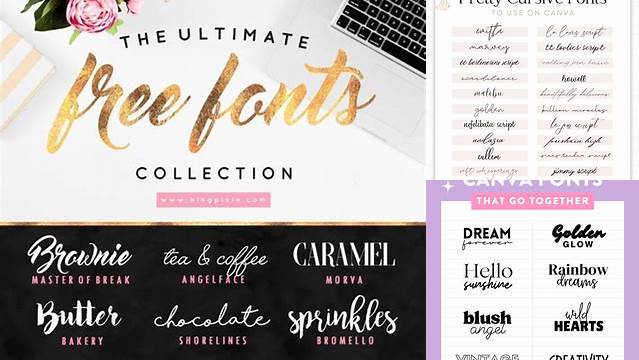
Pretty Fonts Download: Your Ultimate Guide
Hey guys! Ever feel like your project needs that extra something? Maybe it’s a document, a presentation, or even a social media post. Chances are, a pretty font can be the missing piece. Finding the right font can be like discovering the perfect accessory for an outfit – it just makes everything look better. Let's dive into the world of pretty fonts download and explore everything you need to know to make your text truly shine.
1. What Makes a Font “Pretty”?
So, what exactly defines a "pretty" font? It's subjective, of course, but some common characteristics stand out. We're talking about fonts that have an aesthetic appeal that's pleasing to the eye. These fonts often have elegant curves, unique serifs, or a modern, clean look. Think about the message you're trying to convey. A playful font might be great for a party invitation, but not so much for a formal report. Pretty fonts download can be found in various styles, from script fonts that mimic handwriting to bold display fonts that grab attention.
Key Elements of Pretty Fonts:
- Aesthetics: The overall visual appeal of the font.
- Readability: How easy it is to read the font, especially in longer texts.
- Style: The font's personality – is it elegant, playful, modern, or classic?
- Context: How well the font fits the purpose of your project.
Consider the emotions and ideas you want to evoke. A delicate script font can convey elegance and sophistication, while a bold sans-serif font might communicate confidence and modernity. Explore different font styles to discover what resonates with your vision. Remember, the right pretty font can elevate your project from ordinary to extraordinary.
2. Where to Find Pretty Fonts for Download
Okay, now you're convinced you need some gorgeous fonts. But where do you start your search for pretty fonts download? Luckily, the internet is bursting with options! There are tons of websites offering both free and premium fonts. Let's break down some of the best places to look:
- Google Fonts: This is a fantastic resource for free, open-source fonts. They're all web-safe, meaning they'll display correctly on most devices, and there’s a huge variety to choose from.
- Adobe Fonts: If you're an Adobe Creative Cloud subscriber, you have access to a vast library of high-quality fonts. It's a goldmine for designers and creatives!
- DaFont: DaFont is a classic choice for free fonts. You'll find everything from quirky novelty fonts to elegant scripts.
- Font Squirrel: Font Squirrel is another excellent source for free fonts that are licensed for commercial use. They also have a handy font identifier tool if you see a font you like and want to find it.
- Creative Market: Creative Market offers a mix of free and premium fonts, as well as graphics, templates, and other design resources. It’s a great place to discover unique and stylish fonts.
When browsing these sites, use keywords like “script font,” “serif font,” “handwritten font,” or “modern font” to narrow down your search. Don't be afraid to explore and experiment with different styles! The world of pretty fonts is vast and exciting, so enjoy the journey of discovery.
- Cons: The quality and variety can be inconsistent. Free fonts might not have as many weights or styles as premium fonts, and the licensing can sometimes be restrictive. Always double-check the license before using a free font for commercial purposes.
Premium Fonts:
- Pros: Premium fonts often offer superior quality, more extensive character sets, and better support. They're created by professional type designers and are often more polished and versatile. Plus, you usually get a commercial license, which means you can use them for business projects.
- Cons: The main drawback is the cost. Premium fonts can range from a few dollars to hundreds, depending on the foundry and the license. However, if you're serious about design, investing in a few high-quality premium fonts can be worth it.
Ultimately, the best choice depends on your budget, your project requirements, and how often you'll be using the font. If you're just starting out, free fonts are a great way to experiment and build your collection. But if you need something truly unique or professional-grade, premium fonts are the way to go.
4. Popular Styles of Pretty Fonts
Okay, let's talk styles! The world of pretty fonts download is incredibly diverse. Knowing the different styles can help you find the perfect font for your project. Here are some popular categories:
- Script Fonts: These fonts mimic handwriting and are often used for invitations, logos, and headings. They can range from elegant and formal to playful and casual.
- Serif Fonts: Serif fonts have small strokes (serifs) at the ends of the letters. They're often used for body text in books and magazines because they're easy to read.
- Sans-Serif Fonts: Sans-serif fonts don't have serifs, giving them a cleaner, more modern look. They're popular for websites, headings, and logos.
- Display Fonts: These fonts are designed to grab attention and are best used for headings and titles. They come in a wide variety of styles, from bold and geometric to whimsical and decorative.
- Handwritten Fonts: Similar to script fonts, handwritten fonts have a more casual, personal feel. They're great for adding a human touch to your designs.
Within each category, there are countless variations. Explore different styles to find the ones that resonate with you and your project. Don’t be afraid to mix and match fonts, but always make sure they complement each other!
5. How to Choose the Right Pretty Font
Choosing the right pretty font can feel overwhelming, but it doesn't have to be! Here are some tips to guide you:
- Consider Your Project: What are you creating? A wedding invitation will call for a different font than a business presentation.
- Think About Your Audience: Who are you trying to reach? A young audience might appreciate a modern, playful font, while a more formal audience might prefer a classic serif font.
- Readability Matters: No matter how pretty a font is, it needs to be readable. Avoid fonts that are too decorative or have overly complex letterforms, especially for body text.
- Pairing is Key: If you're using multiple fonts, make sure they complement each other. A classic pairing is a serif font for body text and a sans-serif font for headings.
- Test It Out: Before committing to a font, try it out in your design. See how it looks in different sizes and weights. Make sure it works well with your other design elements.
Remember, font choice is an art and a science. It's about finding the perfect balance between aesthetics and functionality. With a little practice, you'll develop an eye for choosing pretty fonts that enhance your projects.
6. Installing Your Downloaded Fonts
Alright, you've found your pretty fonts download, now what? It's time to install them! The process is usually pretty straightforward, but it can vary slightly depending on your operating system.
- Download the font file (usually in .ttf or .otf format).
- Right-click on the font file and select "Install."
- Alternatively, you can copy the font file to the Fonts folder (usually located in C:\Windows\Fonts).
For macOS:
- Download the font file.
- Double-click on the font file, and Font Book will open.
- Click "Install Font" at the bottom of the Font Book window.
Once installed, your new font should be available in most applications. If you're having trouble, try restarting the application or your computer. And that's it! You're ready to start using your gorgeous new fonts.
7. Using Pretty Fonts in Different Applications
Now that you've got your pretty fonts download and installed, let's talk about using them in different applications. Whether you're working in Word, Photoshop, or a web design platform, the principles are the same.
General Tips:
- Select Your Text: First, highlight the text you want to change.
- Find the Font Menu: Look for the font dropdown menu in the application's toolbar or formatting panel. It's usually labeled with the current font name.
- Browse and Choose: Scroll through the list of fonts and select your desired font.
- Adjust Size and Style: You can also adjust the font size, weight (bold, italic), and other styles in the formatting panel.
Specific Applications:
- Microsoft Word: The font menu is located in the "Home" tab, in the "Font" group.
- Adobe Photoshop: The font options are in the "Character" panel (Window > Character).
- Web Design Platforms (e.g., WordPress): Most platforms have a theme customization panel where you can set fonts for headings and body text.
Experiment with different fonts in your applications to see what works best. Don't be afraid to try new things and get creative!
8. Font Licensing: What You Need to Know
Okay, this might seem a bit dry, but it's super important. Font licensing determines how you can legally use a font. When you pretty fonts download, you're not actually buying the font itself; you're buying a license to use it. Here’s a quick rundown:
- Personal Use: This license allows you to use the font for personal projects, like invitations or scrapbooking. You usually can't use it for commercial purposes.
- Commercial Use: This license allows you to use the font in projects that generate revenue, like logos, websites, or marketing materials. There might be restrictions on the number of projects or the size of the audience.
- Open Source: These fonts have very permissive licenses, often allowing you to use them for any purpose, including commercial use, without restrictions.
Always read the license agreement before using a font, especially for commercial projects. If you're not sure, it's best to err on the side of caution and contact the font designer or foundry for clarification.
9. Pretty Fonts for Logos
A logo is the face of your brand, and the font you choose plays a huge role in conveying your brand's personality. Pretty fonts download for logos need to be both visually appealing and legible, even at small sizes. Here are some tips:
- Consider Your Brand: Is your brand modern and minimalist? Or classic and elegant? Choose a font that reflects your brand's identity.
- Legibility is Key: Make sure your logo is readable at various sizes, both online and in print.
- Simplicity Can Be Powerful: Sometimes, a simple, clean font is the most effective choice.
- Think About the Font's Personality: Does the font evoke the right emotions? Does it feel trustworthy, creative, or professional?
Popular choices for logo fonts include sans-serif fonts for a modern look, script fonts for a touch of elegance, and serif fonts for a classic feel. But don't be afraid to break the rules and choose something unique that truly represents your brand.
10. Pretty Fonts for Websites
The fonts you use on your website can significantly impact the user experience. Pretty fonts download for websites should be readable, load quickly, and complement your site's overall design. Here's what to keep in mind:
- Readability is Paramount: Your website's text should be easy to read on different devices and screen sizes.
- Web-Safe Fonts: These fonts are pre-installed on most computers, ensuring they'll display correctly for all visitors. Examples include Arial, Times New Roman, and Courier New. However, they can look a bit generic.
- Web Fonts: These fonts are hosted online and loaded when a visitor accesses your site. They offer more variety and style, but can impact loading speed if not optimized.
- Font Pairing: Choose a combination of fonts that work well together. A common approach is to use one font for headings and another for body text.
Google Fonts is an excellent resource for free, web-safe fonts. When choosing fonts for your website, think about your brand's aesthetic and the overall user experience. A well-chosen font can enhance your site's visual appeal and make it more engaging.
11. Pretty Fonts for Invitations
Planning a special event? The font you use on your invitations can set the tone and create excitement. Pretty fonts download for invitations often include elegant scripts, decorative serifs, and playful handwritten styles. Consider these tips:
- Match the Event's Style: A formal wedding invitation will call for a different font than a casual birthday party invite.
- Legibility Matters: While aesthetics are important, make sure your invitation text is easy to read.
- Use Contrasting Fonts: Combine a decorative font for headings with a simpler font for the details.
- Consider White Space: Don't overcrowd your invitation with text. Leave plenty of white space to create a clean, elegant look.
Script fonts are a popular choice for wedding invitations, while handwritten fonts can add a personal touch to birthday invites. Experiment with different styles to find the perfect font for your event.
12. Pretty Fonts for Resumes
Your resume is your first impression, and the fonts you use can influence how potential employers perceive you. Pretty fonts download for resumes should be professional, readable, and convey your personality. Here are some guidelines:
- Prioritize Readability: Choose fonts that are easy to read on both screen and paper.
- Stick to Professional Fonts: Avoid overly decorative or quirky fonts. Stick to classic choices like Times New Roman, Arial, or Calibri.
- Use a Consistent Font: Choose one or two fonts for your resume and use them consistently throughout.
- Consider Font Size: Use a font size that's comfortable to read, typically between 10 and 12 points.
While you want your resume to stand out, it's important to prioritize clarity and professionalism. A clean, readable font will make your resume more appealing to employers.
13. Pretty Fonts for Social Media Graphics
Social media is a visual platform, and your graphics need to grab attention. Pretty fonts download for social media should be eye-catching, legible, and consistent with your brand. Consider these tips:
- Choose Fonts That Pop: Use fonts that stand out against your background image or color.
- Consider Your Brand Voice: Select fonts that reflect your brand's personality and style.
- Use a Limited Number of Fonts: Stick to one or two fonts per graphic to maintain consistency.
- Optimize for Mobile: Make sure your text is readable on small screens.
Bold sans-serif fonts are popular for headlines, while script fonts can add a touch of personality. Experiment with different styles to find what works best for your brand.
14. Pretty Fonts for Presentations
A well-designed presentation can make a big impact, and your font choices play a crucial role. Pretty fonts download for presentations should be readable from a distance, professional, and engaging. Here are some tips:
- Prioritize Readability: Choose fonts that are easy to read on a large screen.
- Use a Consistent Font: Stick to one or two fonts throughout your presentation.
- Consider Font Size: Use a font size that's large enough for the audience to read comfortably.
- Use Bold and Italics Sparingly: These styles can add emphasis, but overuse can be distracting.
Sans-serif fonts are a popular choice for presentations because they're clean and easy to read. However, you can also use serif fonts for a more formal look. Just make sure your font choices enhance your message, not distract from it.
15. Pretty Fonts for Ebooks
Choosing the right font for your ebook can enhance the reading experience. Pretty fonts download for ebooks should be readable, comfortable to read for extended periods, and consistent with your book's genre. Consider these guidelines:
- Prioritize Readability: Choose fonts that are easy on the eyes, especially for long blocks of text.
- Consider Serif Fonts: Serif fonts are often preferred for body text in books because they're considered more readable for long texts.
- Use a Consistent Font: Stick to one font for the body text and another for headings.
- Think About Font Size and Line Spacing: These elements can impact readability, so experiment to find what works best.
Times New Roman, Garamond, and Georgia are classic choices for ebook body text. For headings, you can use a slightly bolder version of the same font or a complementary sans-serif font. Your goal is to create a comfortable and enjoyable reading experience for your audience.
16. Combining Pretty Fonts: Font Pairing Tips
Using multiple fonts in a design can add visual interest and hierarchy, but it's important to do it right. Pretty fonts download combinations should complement each other, not clash. Here are some font pairing tips:
- Contrast is Key: Pair a serif font with a sans-serif font for a classic look. This creates visual contrast and makes it easy to distinguish between headings and body text.
- Consider Font Personalities: Choose fonts that have similar personalities. For example, a formal script font pairs well with a traditional serif font.
- Use a Font Hierarchy: Designate one font for headings and another for body text. This creates a clear visual structure.
- Limit Your Font Choices: Stick to two or three fonts per project to avoid overwhelming your design.
Experiment with different font combinations to find what works best for your project. There are many online resources and tools that can help you find font pairings that are visually appealing and effective.
17. The Psychology of Pretty Fonts
Did you know that fonts can evoke emotions and convey messages beyond the words themselves? The psychology of pretty fonts download plays a significant role in how your audience perceives your design. Here's a glimpse into how different font styles can influence perception:
- Serif Fonts: These fonts often evoke feelings of tradition, authority, and trustworthiness. They're a good choice for projects that require a sense of formality or stability.
- Sans-Serif Fonts: These fonts are often associated with modernity, simplicity, and clarity. They're a good choice for projects that need to feel clean and contemporary.
- Script Fonts: These fonts can convey elegance, creativity, and personalization. They're often used for invitations, logos, and branding that requires a touch of sophistication.
- Display Fonts: These fonts are designed to grab attention and can evoke a wide range of emotions, depending on their style. They're best used sparingly for headings and titles.
When choosing a font, think about the message you want to convey and the emotions you want to evoke. The right font can help you connect with your audience on a deeper level.
18. Pretty Fonts and Branding
Your brand's fonts are a crucial element of your visual identity. They help create a consistent look and feel across all your marketing materials. Pretty fonts download for branding should align with your brand's personality, values, and target audience. Here are some considerations:
- Brand Personality: Is your brand playful and fun? Or serious and professional? Choose fonts that reflect your brand's unique character.
- Target Audience: Consider the preferences of your target audience. A younger audience might respond well to modern, playful fonts, while a more mature audience might prefer classic, elegant fonts.
- Consistency is Key: Use the same fonts consistently across all your branding materials, from your logo to your website to your social media graphics.
- Legibility Matters: Make sure your brand fonts are easy to read in different sizes and formats.
Your brand fonts should be instantly recognizable and help you stand out from the competition. Invest time in choosing fonts that truly represent your brand and resonate with your audience.
19. Creating Your Own Pretty Fonts
Feeling adventurous? Why not try creating your own pretty fonts download? Designing your own fonts can be a challenging but rewarding process. It allows you to create something truly unique and tailor-made for your projects. Here are some steps to get you started:
- Choose Your Tools: There are several font design software options available, both free and paid. Some popular choices include FontForge (free), Glyphs (paid), and FontLab (paid).
- Sketch Your Letters: Start by sketching the basic shapes of your letters on paper or digitally. Pay attention to the proportions and the overall style you want to achieve.
- Digitize Your Sketches: Import your sketches into your font design software and use the tools to create vector outlines of your letters.
- Refine Your Design: Adjust the curves, spacing, and kerning (the space between letters) to create a cohesive and readable font.
- Generate Your Font Files: Once you're satisfied with your design, generate the font files (usually .ttf or .otf) that you can install on your computer.
Creating a font from scratch takes time and skill, but it's a fantastic way to express your creativity and add a personal touch to your designs. There are many online tutorials and resources to help you learn the process.
20. Pretty Fonts for Print vs. Digital
When choosing pretty fonts download, it's important to consider whether you'll be using them primarily for print or digital projects. Fonts that look great on screen might not always translate well to print, and vice versa. Here are some key differences to keep in mind:
- Readability: Fonts for print should be highly readable at small sizes, especially for body text. Serif fonts are often preferred for print because the serifs help guide the eye.
- Screen Resolution: Digital fonts need to be optimized for screen resolution. Sans-serif fonts tend to render well on screens because their clean lines are less likely to appear blurry.
- File Size: Web fonts need to have small file sizes to ensure fast loading times. Consider using web-safe fonts or optimized web fonts.
- Color and Contrast: When choosing fonts for print, consider the colors and paper stock you'll be using. Make sure your text has enough contrast to be legible.
Some fonts work well in both print and digital environments, but it's always a good idea to test your font choices in the intended medium before finalizing your design.
21. The Future of Pretty Fonts
The world of typography is constantly evolving, with new trends and technologies shaping the future of pretty fonts download. Here are some exciting developments to watch out for:
- Variable Fonts: These fonts contain multiple variations within a single font file, allowing for greater flexibility and customization. They can adjust weight, width, and other characteristics, making them ideal for responsive design.
- Color Fonts: These fonts include color information within the font file, allowing for vibrant and expressive typography. They're becoming increasingly popular for social media graphics and branding.
- AI-Powered Font Design: Artificial intelligence is starting to play a role in font design, with tools that can generate fonts based on user input or analyze existing fonts to create variations.
- Accessibility: There's a growing emphasis on creating fonts that are accessible to people with visual impairments. This includes fonts with clear letterforms, high contrast, and support for screen readers.
The future of typography is bright, with exciting new possibilities for creating beautiful and functional fonts.
22. Maintaining a Pretty Font Library
As you explore the world of pretty fonts download, you'll likely build up a collection of fonts over time. It's important to organize and manage your font library to keep it from becoming overwhelming. Here are some tips:
- Use a Font Manager: Font management software can help you organize, activate, and deactivate fonts. Some popular options include FontBase (free) and RightFont (paid).
- Organize by Style: Create folders for different font styles, such as serif, sans-serif, script, and display fonts.
- Tag Your Fonts: Use tags or keywords to describe the characteristics of your fonts, such as elegant, modern, playful, or professional.
- Keep Track of Licenses: Create a spreadsheet or document to track the licenses for your fonts, especially if you have commercial licenses.
- Regularly Clean Up Your Library: Delete fonts that you no longer use or that are duplicates.
A well-organized font library will save you time and make it easier to find the perfect font for your project.
23. Finding Inspiration for Pretty Font Choices
Sometimes, the hardest part of choosing a pretty font is knowing where to start. If you're feeling stuck, here are some ways to find inspiration:
- Browse Design Websites: Websites like Behance, Dribbble, and Awwwards showcase beautiful designs that often feature creative typography.
- Follow Designers and Typographers: Follow designers and typographers on social media to see their latest work and font choices.
- Look at Magazines and Books: Pay attention to the fonts used in magazines, books, and other printed materials.
- Visit Typography Blogs: There are many blogs dedicated to typography that feature font reviews, font pairings, and design inspiration.
- Experiment and Play: Don't be afraid to try different fonts and combinations. The best way to find your style is to experiment and see what works for you.
Inspiration is all around you. By paying attention to the typography in the world around you, you'll start to develop your eye for pretty fonts.
24. Pretty Fonts for Different Cultures
Typography is not just about aesthetics; it's also about cultural context. Pretty fonts download should be appropriate for the language and culture of your target audience. Here are some considerations:
- Language Support: Make sure the font supports the characters and glyphs of the language you're using.
- Cultural Associations: Different fonts can have different cultural associations. For example, certain script fonts might be associated with traditional calligraphy in some cultures.
- Readability: Fonts should be readable in the specific script or language you're using.
- Local Preferences: Research local typography trends and preferences to choose fonts that resonate with your target audience.
When designing for a global audience, it's important to be culturally sensitive and choose fonts that are appropriate for the context.
25. Legal Aspects of Pretty Fonts Download
We've touched on font licensing earlier, but it's worth reiterating the legal aspects of pretty fonts download. Using fonts without the proper license can lead to legal issues. Here are some key points to remember:
- Read the License Agreement: Always read the license agreement before using a font, especially for commercial projects.
- Understand the Terms: Pay attention to the terms of the license, such as whether it allows for commercial use, embedding in documents, or modifying the font.
- Keep Records: Keep records of your font purchases and licenses.
- Use Reputable Sources: Download fonts from reputable sources to avoid downloading malware or pirated fonts.
- When in Doubt, Ask: If you're not sure about the terms of a font license, contact the font designer or foundry for clarification.
Protect yourself and your business by using fonts legally and ethically.
26. Common Mistakes When Choosing Pretty Fonts
Choosing the right pretty font can be tricky, and it's easy to make mistakes. Here are some common pitfalls to avoid:
- Prioritizing Style Over Readability: The most beautiful font is useless if it's not readable.
- Using Too Many Fonts: Too many fonts can make your design look cluttered and unprofessional.
- Choosing Fonts That Don't Match: Fonts that clash can create a jarring and unpleasant visual experience.
- Ignoring the Context: Fonts should be appropriate for the project and the audience.
- Not Testing the Font: Always test your font choices in the intended medium and at different sizes.
By avoiding these common mistakes, you'll be well on your way to choosing pretty fonts that enhance your designs.
27. The Relationship Between Pretty Fonts and Design Trends
Design trends come and go, and pretty fonts download are no exception. What's popular today might be outdated tomorrow. Here's how to stay on top of font trends:
- Follow Design Blogs and Magazines: These publications often feature articles on the latest typography trends.
- Browse Design Websites: Websites like Behance and Dribbble showcase current design styles.
- Pay Attention to Branding: Notice the fonts used by successful brands and companies.
- Experiment and Play: Don't be afraid to try new fonts and styles.
- Balance Trends with Timelessness: While it's good to be aware of trends, choose fonts that will still look good in the long run.
Staying up-to-date with font trends can help you create designs that are fresh and modern.
28. Pretty Fonts and Accessibility
Creating accessible designs is crucial, and that includes choosing pretty fonts download that are readable and usable by everyone, including people with visual impairments. Here are some tips for choosing accessible fonts:
- Choose Fonts with Clear Letterforms: Avoid fonts with overly decorative or complex letterforms.
- Use Sufficient Contrast: Ensure there's enough contrast between the text and the background.
- Consider Font Size: Use a font size that's large enough to be easily read.
- Avoid Using Too Many Styles: Limit the use of bold, italics, and other styles, as they can make text harder to read.
- Test with Screen Readers: If possible, test your designs with screen readers to ensure they're accessible.
By prioritizing accessibility, you can create designs that are inclusive and usable by a wider audience.
29. The Cost of Not Using Pretty Fonts Correctly
Using pretty fonts download incorrectly might seem like a minor issue, but it can have significant consequences. Here are some potential costs:
- Damaged Brand Image: Poor font choices can make your brand look unprofessional or outdated.
- Reduced Readability: Fonts that are difficult to read can frustrate your audience and make it harder for them to understand your message.
- Legal Issues: Using fonts without the proper license can lead to legal problems.
- Missed Opportunities: Ineffective typography can detract from your message and prevent you from achieving your goals.
Investing time and effort in choosing the right fonts is essential for effective communication and a positive brand image.
30. Resources for Learning More About Pretty Fonts
Want to dive deeper into the world of pretty fonts download? Here are some resources for learning more:
- Typography Books: There are many excellent books on typography, covering topics like font history, font design, and font pairing.
- Online Courses: Platforms like Skillshare and Udemy offer courses on typography and font design.
- Typography Blogs: Many blogs are dedicated to typography, featuring articles, tutorials, and inspiration.
Typography is a fascinating and rewarding field. By continuously learning and exploring, you can develop your skills and create stunning designs with pretty fonts.